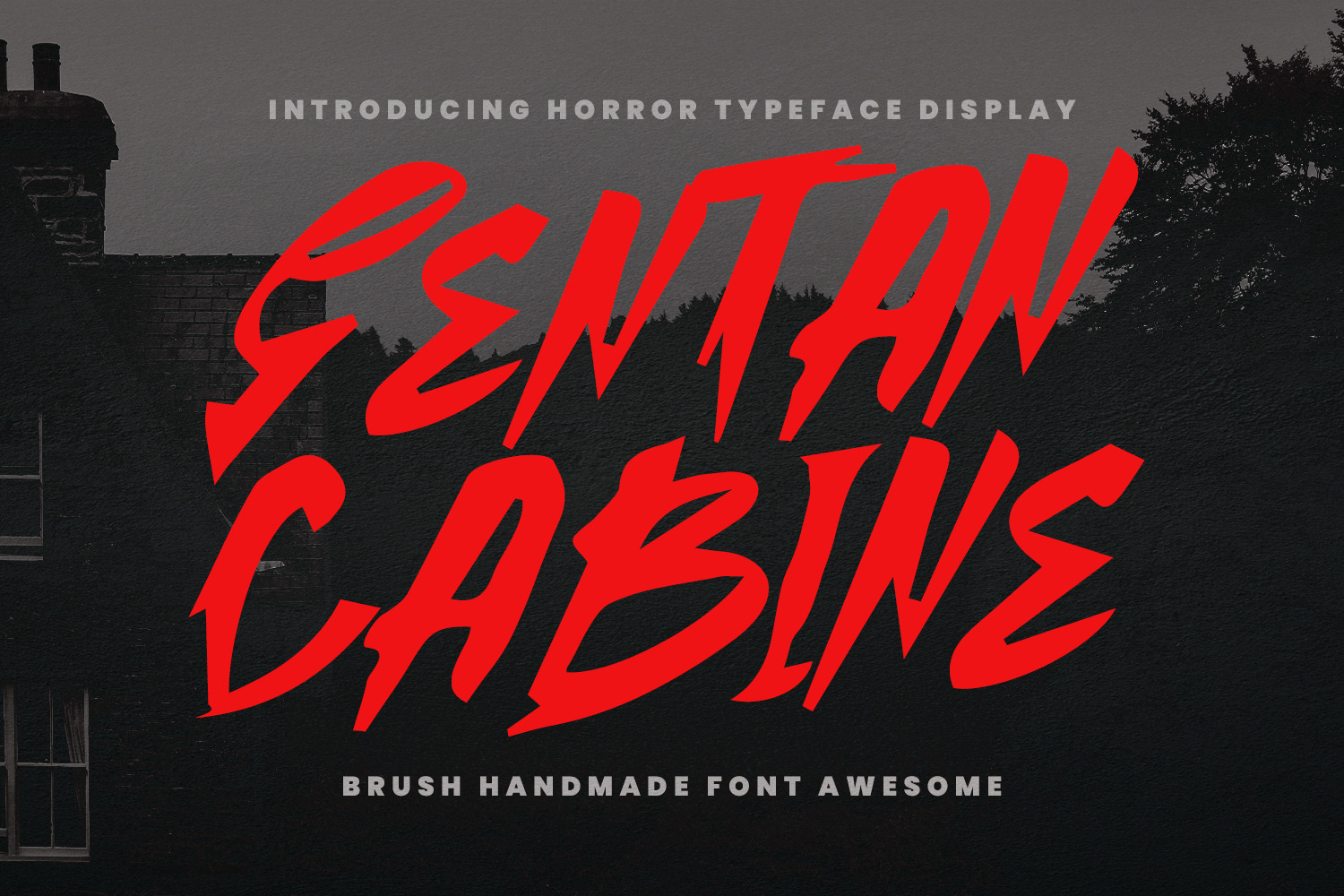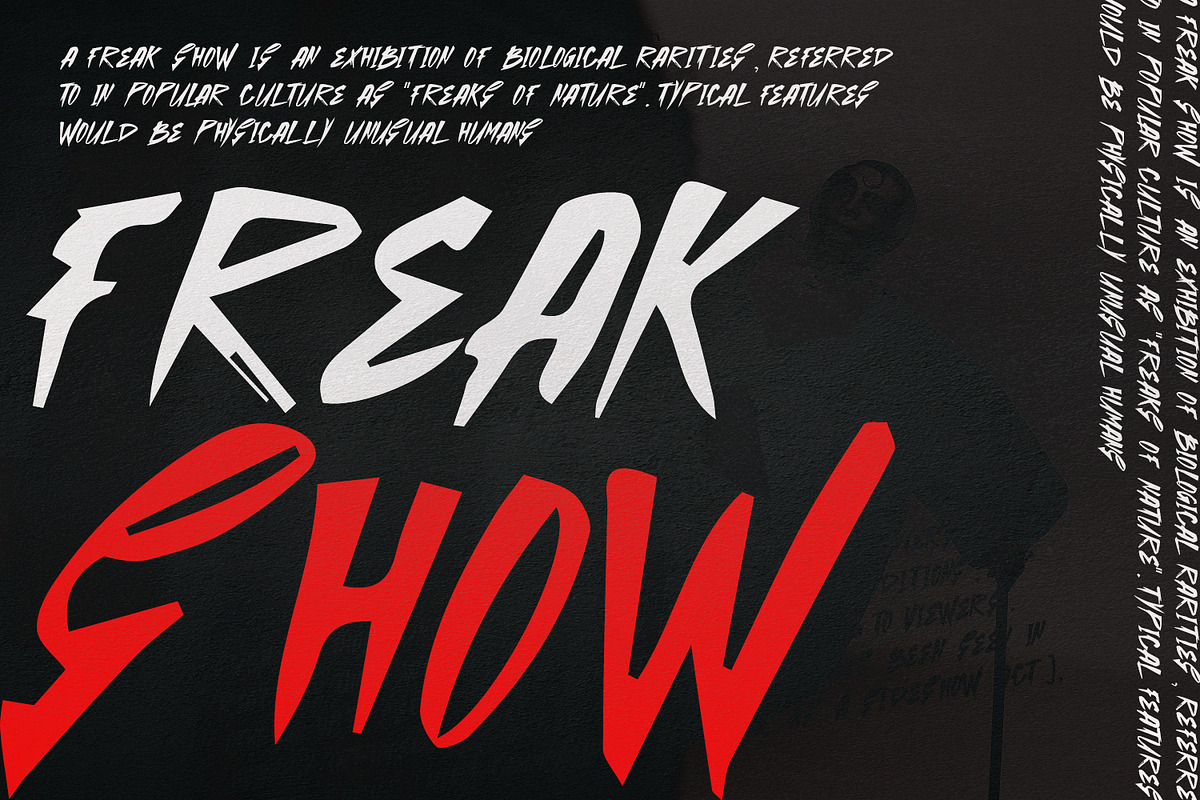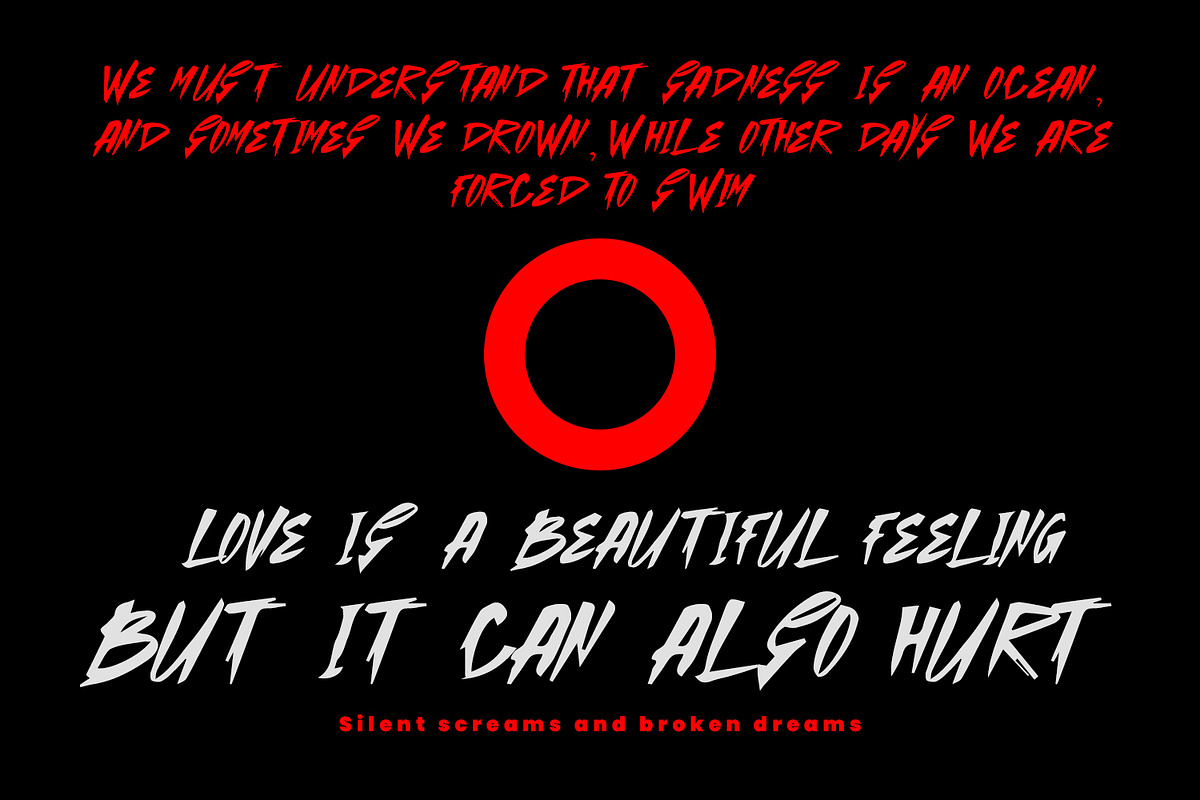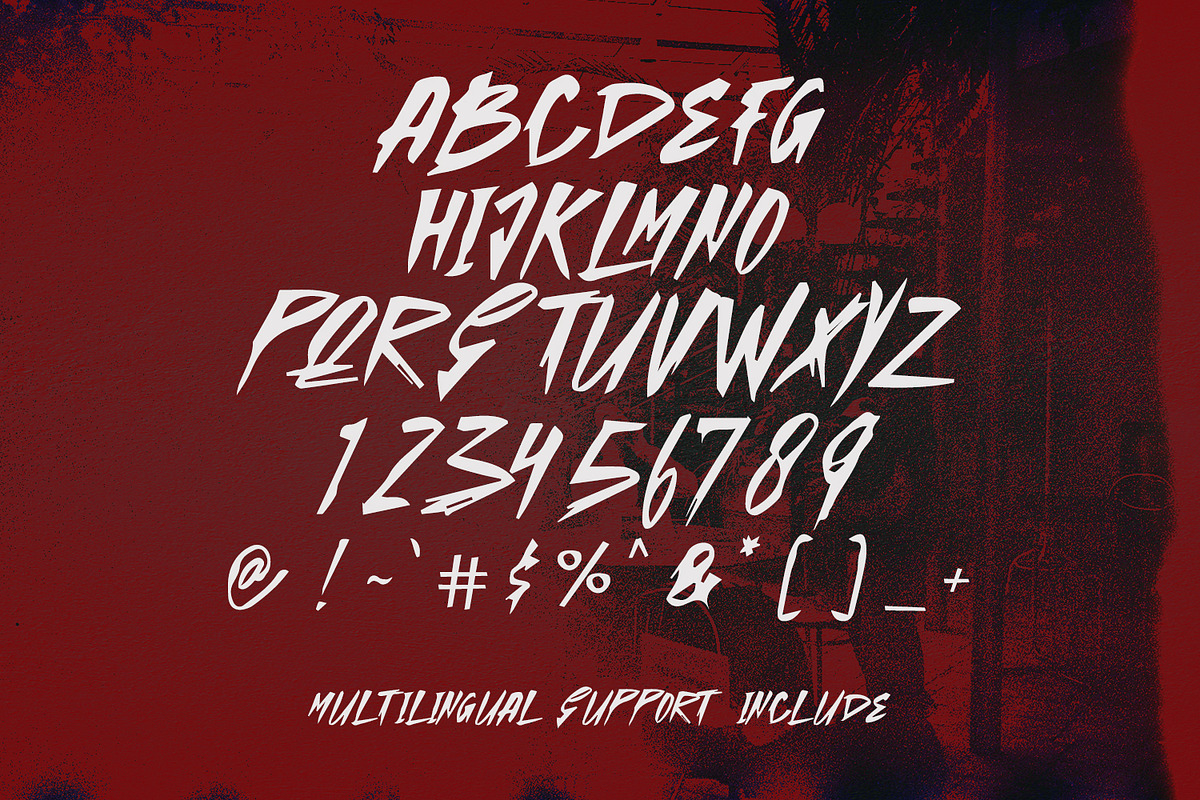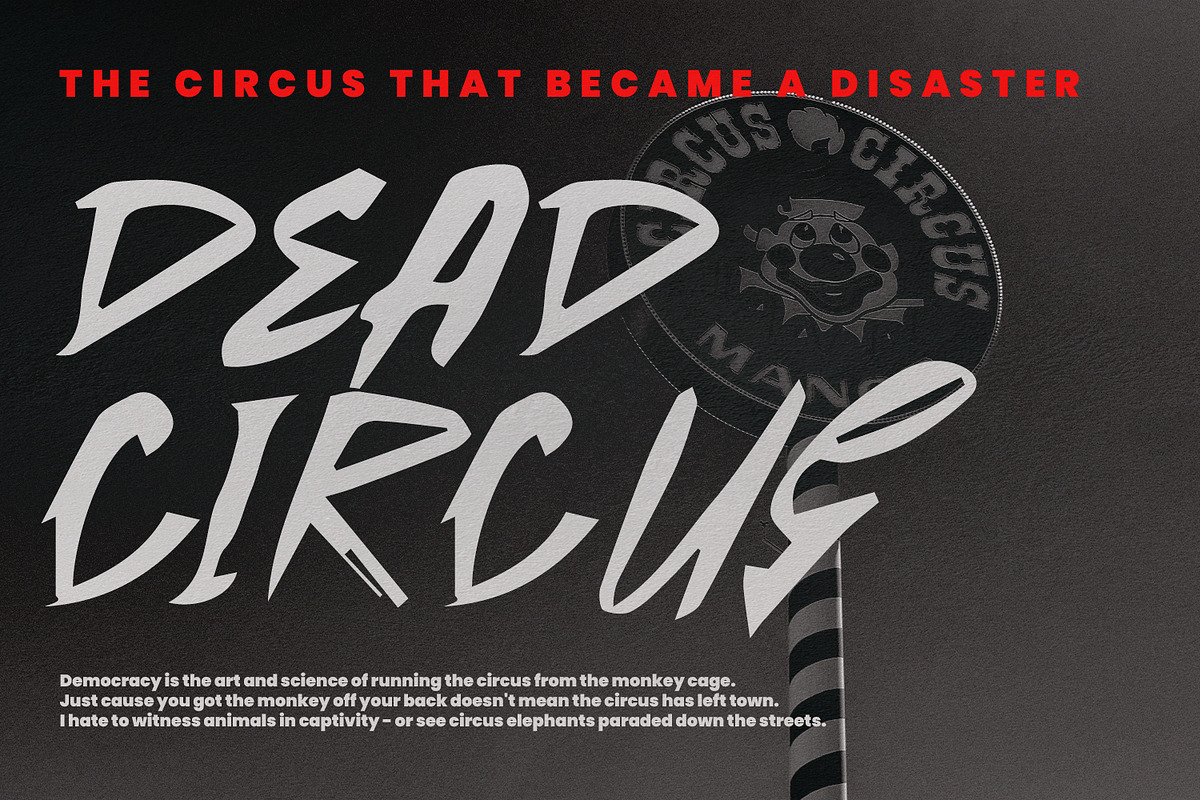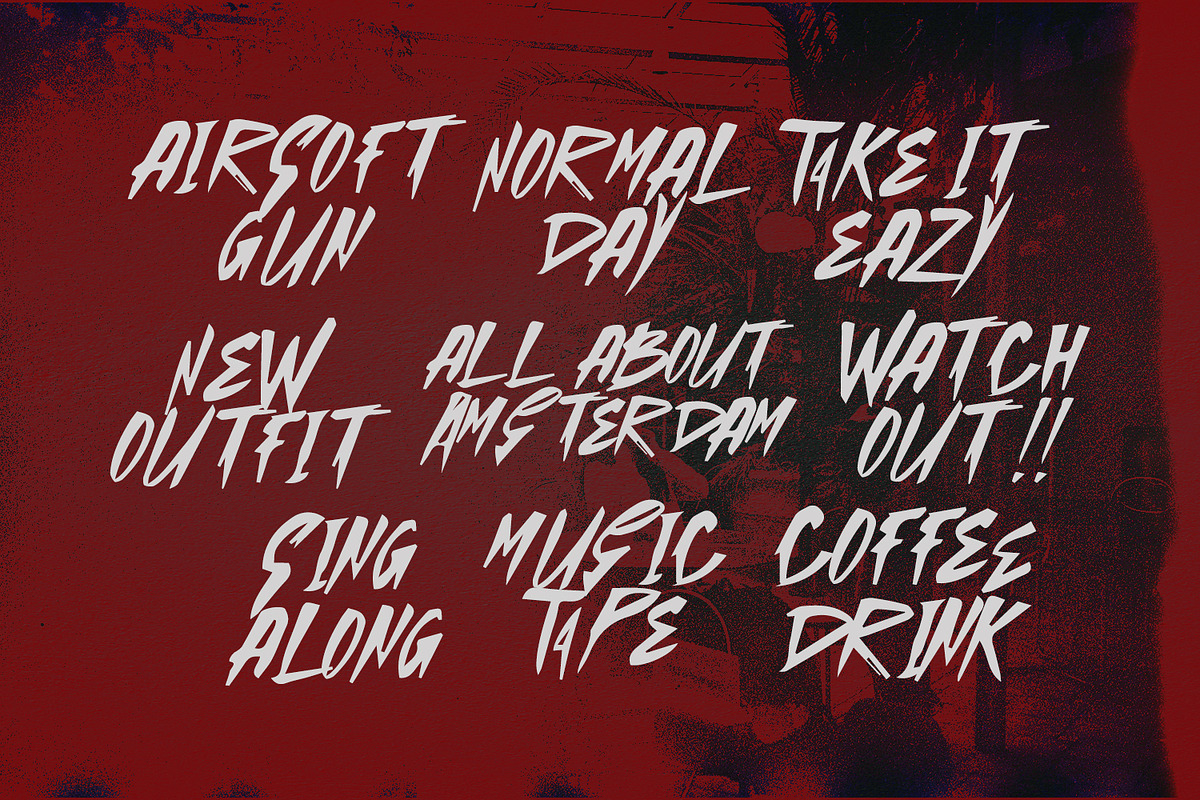
Sentan Cabine Horror Typeface Brush
Sentan Cabine handmade horror brush handwritten font, fun character with alternates and ligatures. To give you an extra creative work. Sentan Cabine handmade brush display font support multilingual language support.